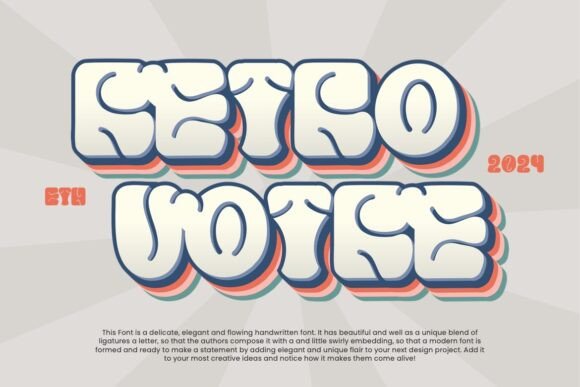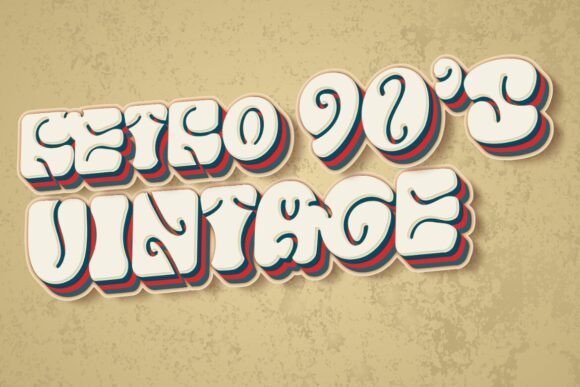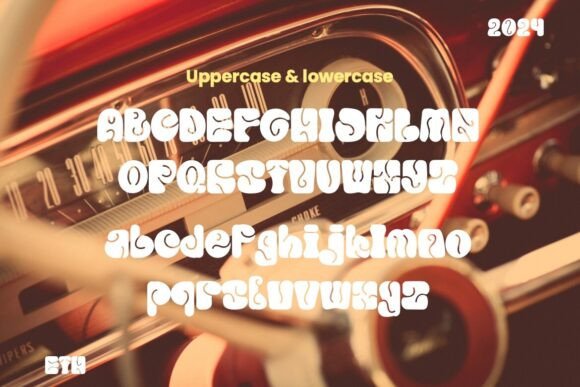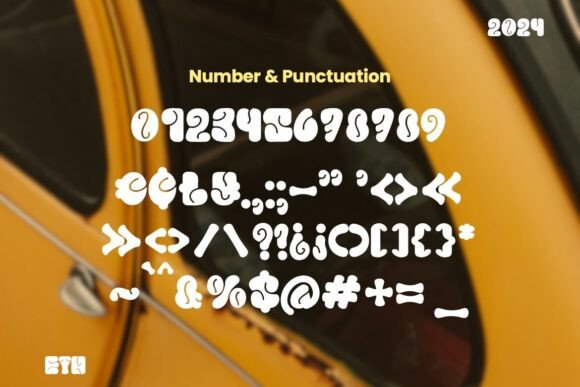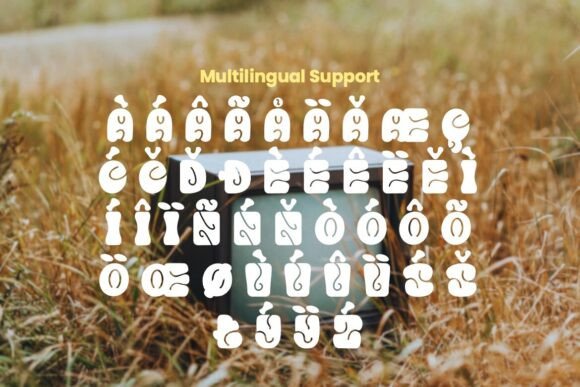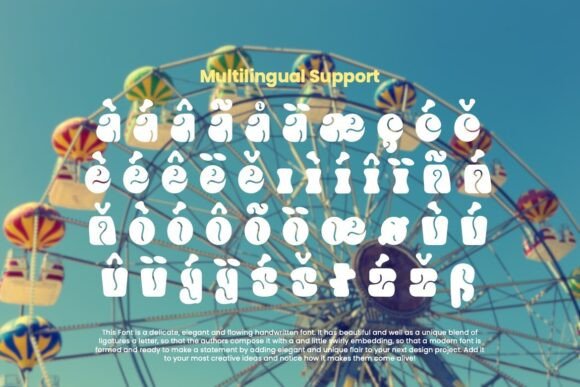
Introduction to Retro Votre Font
“Retro Votre – Retro Playful” is a fun and lively design style that mixes vintage charm with a playful twist.
It combines bright colors, bold patterns, and nostalgic elements from the past to create a cheerful and energetic vibe Perfect for those who love a bit of retro fun.
Key Features of Retro Votre Font